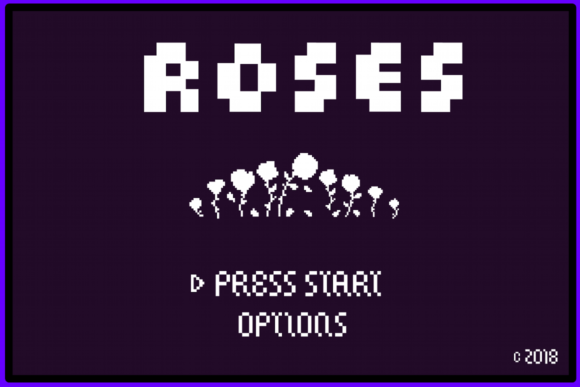
The Nostalgic Charm of 8 Bit Roses Font: A Designer’s Delight
I’ll never forget the time I was working on a retro-themed project for a client, and I was struggling to find the perfect font to capture the essence of vintage game consoles. The client wanted something that would transport their audience back to the good old days of Atari and NES. I scoured the internet, but nothing seemed quite right – until I stumbled upon the 8 Bit Roses font. It was love at first sight! 💕
This font is a masterful recreation of the classic pixel fonts that defined an era. Its simplicity and charm are instantly recognizable, and it’s been a staple in my design toolkit ever since. In this article, I’ll share my experience with 8 Bit Roses, its features, and how to make the most of it in your designs.
- ✨ The nostalgic value is off the charts – it’s like a blast from the past!
- ✅ The font is highly legible, even at small sizes.
- 💻 It’s perfect for creating retro-style posters, logos, and graphics.
- 🎨 The pixelated aesthetic adds a unique texture to your designs.
While 8 Bit Roses is an excellent font, it’s not without its limitations. ⚠️ Some characters, like the lowercase letters, can be a bit tricky to read at very small sizes. Additionally, the font may not be suitable for body text, as it’s primarily designed for display purposes.
🤔 One thing to keep in mind is that the font’s pixelated nature can make it challenging to use in certain design contexts. However, with a little creativity, you can work around these limitations and create stunning designs.
One of the best things about 8 Bit Roses is its support for OpenType features and glyphs. These features allow you to create unique and creative text effects that add an extra layer of personality to your designs.
The Backstory Behind 8 Bit Roses
The story behind 8 Bit Roses is one of nostalgia and passion. The font’s creator, a designer with a love for retro gaming, set out to capture the essence of vintage game consoles in a font. The result is a beautiful, pixelated font that’s perfect for designers and creatives looking to add a touch of nostalgia to their work.
Q: Is 8 Bit Roses suitable for body text?
A: While 8 Bit Roses is an excellent font, it’s primarily designed for display purposes. It’s not recommended for body text, as it may be difficult to read at small sizes.
Q: Is 8 Bit Roses available in different weights or styles?
A: Currently, 8 Bit Roses is available in a single weight, but the font’s creator may release additional weights or styles in the future.